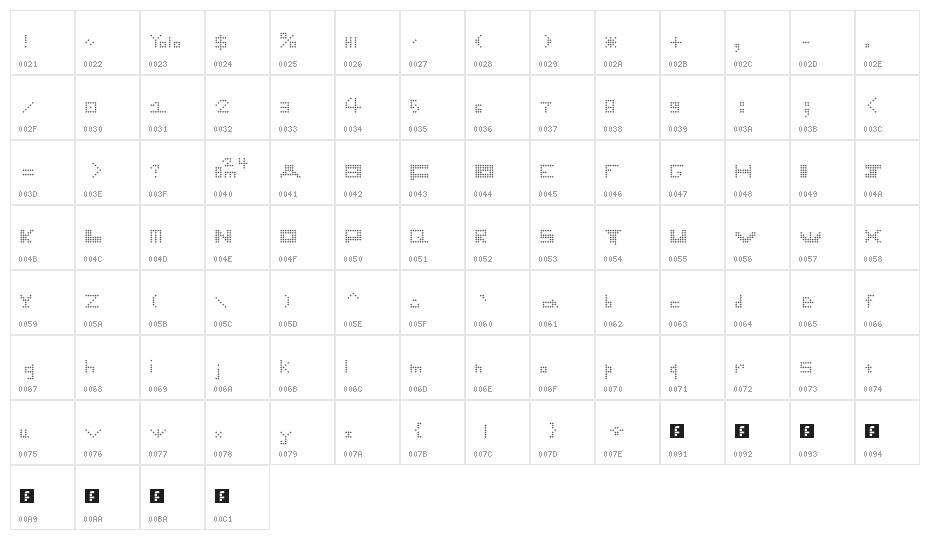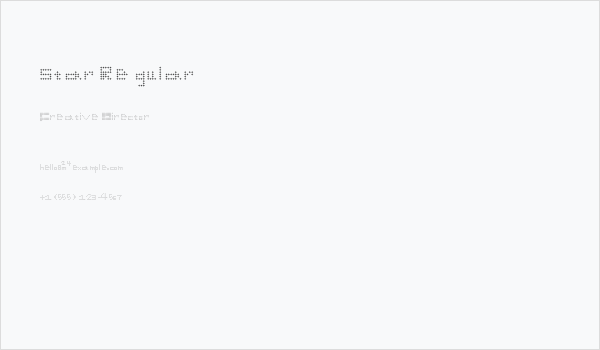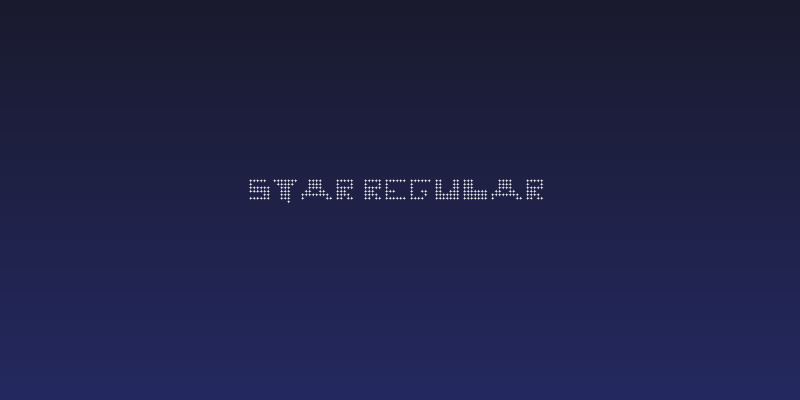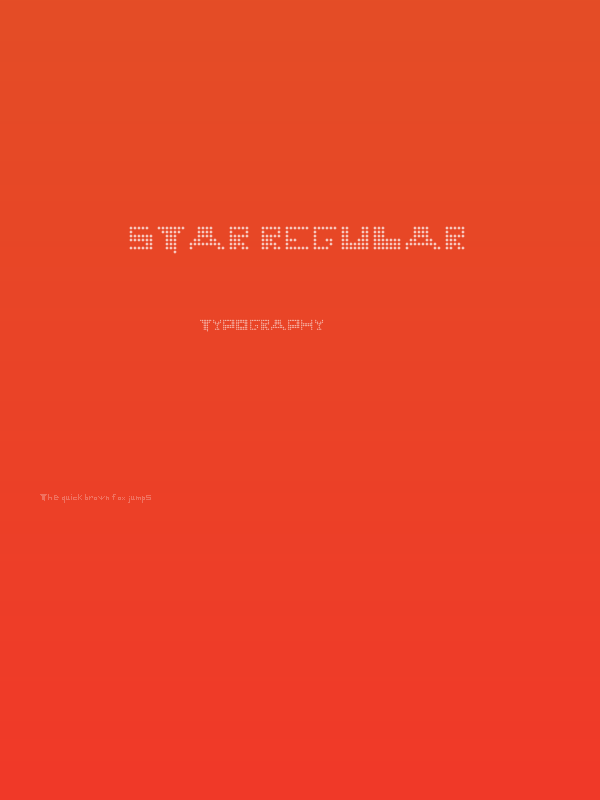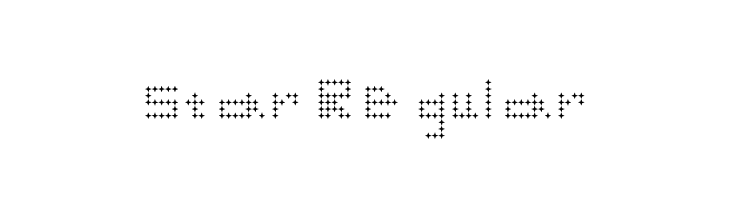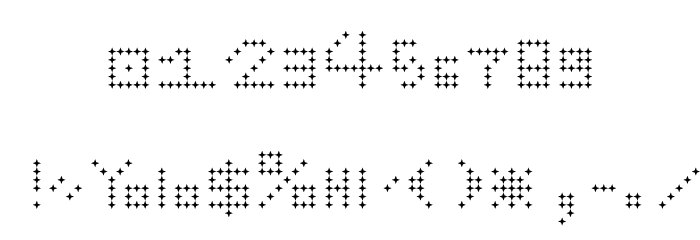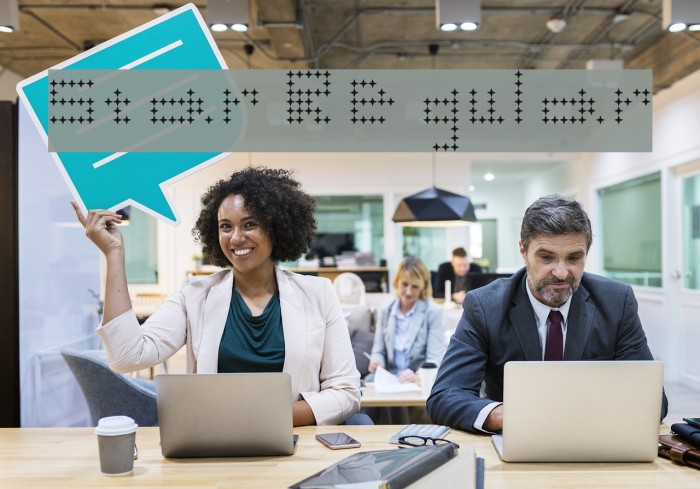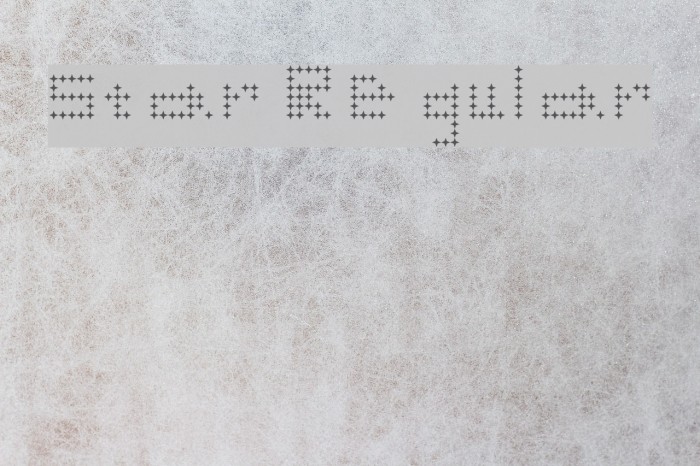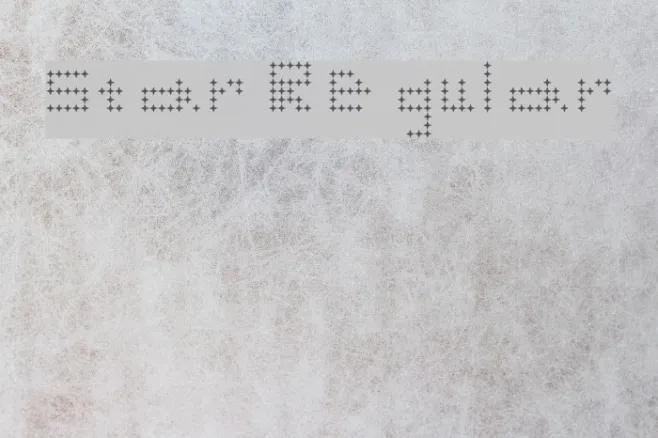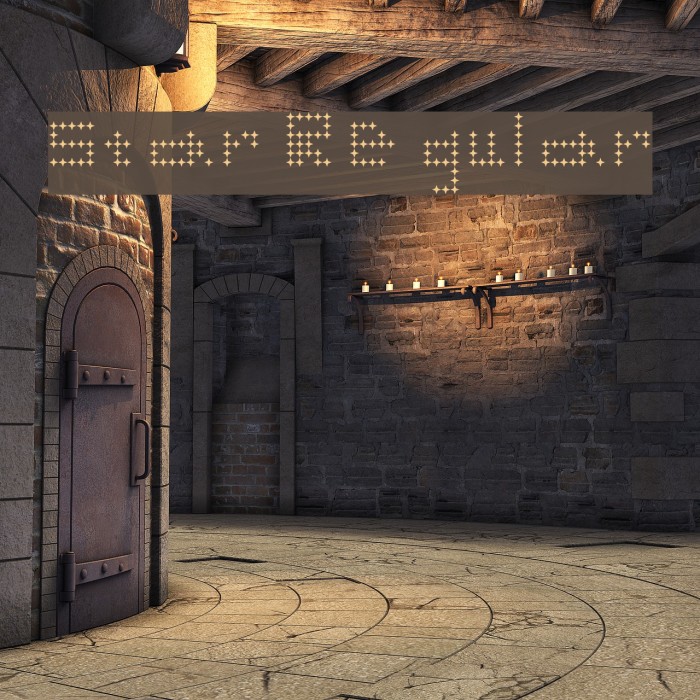
star Regular Font
star Regular Description
This font features a unique design where each character is composed of small star-like dots, creating a visually striking and decorative appearance. The characters are evenly spaced and maintain a consistent size, giving the font a uniform look. The uppercase and lowercase letters are distinct, with the uppercase letters having a slightly more pronounced star pattern. Numbers and special characters are also included, following the same starry motif. This font is ideal for projects that require a playful and eye-catching style, such as party invitations, children's books, or creative branding materials.
| Proposed Projects | Ideal for party invitations, children's books, creative branding, and decorative posters. |